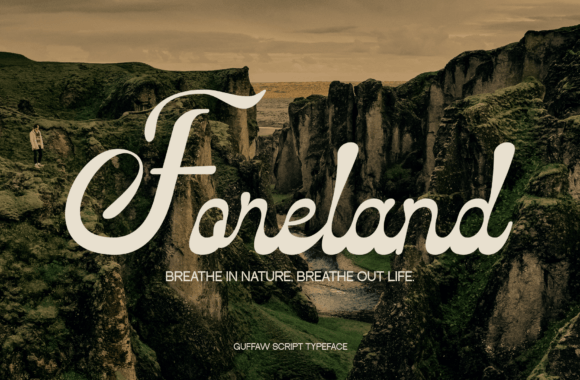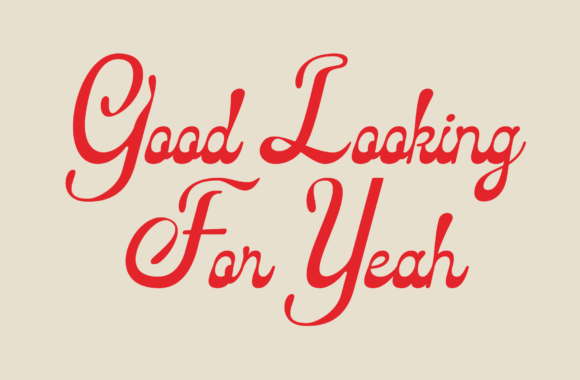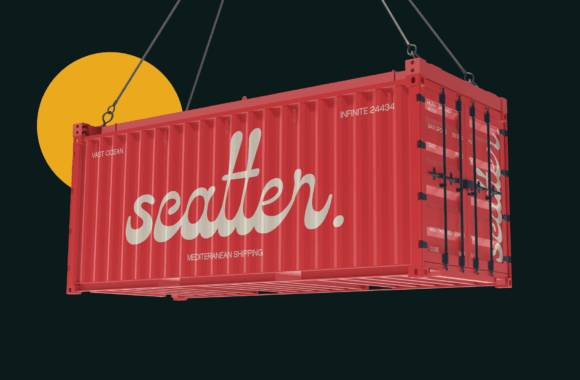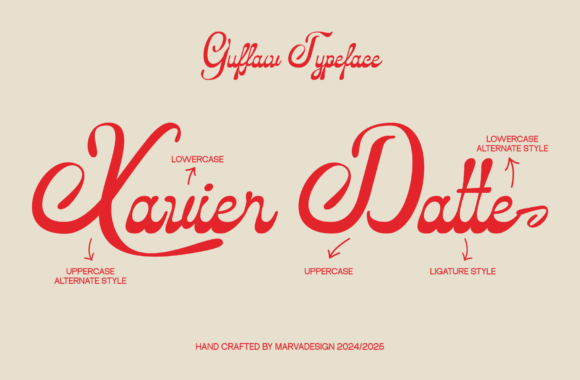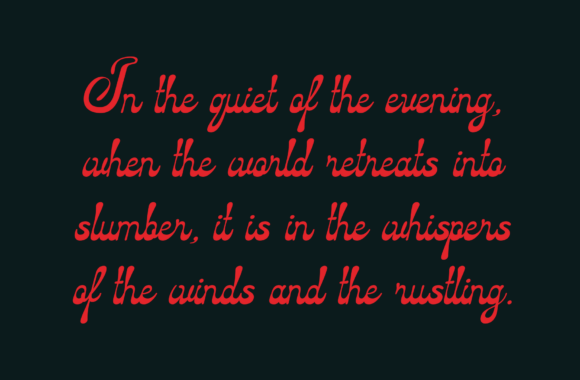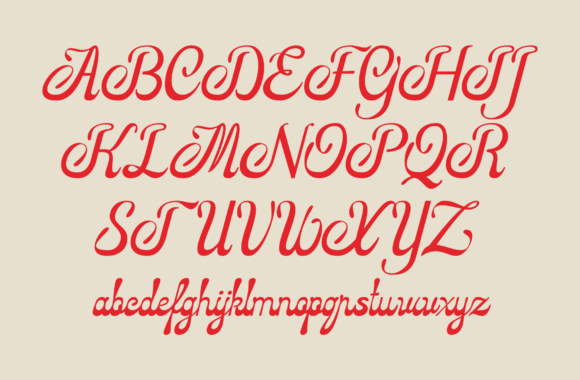
Introduction to Guffaw Font
Have you ever been working on a creative project, pouring your heart and soul into it, only to feel like something’s missing? That’s when you stumble upon a game-changing design resource that elevates your work to the next level. For designers seeking a unique and captivating visual language, I’m excited to introduce you to Guffaw Font – a lively, expressive handwritten script style that infuses retro charm with groovy aesthetics.
Guffaw Font is more than just a typeface; it’s a breath of fresh air for designers looking to inject a playful and nostalgic touch into their work. With its fluid strokes and organic letterforms, this typeface combines classic influences with a modern edge, crafting a distinctive personality that is both timeless and fresh. Whether you’re working on a branding project, packaging design, or social media graphics, Guffaw Font enhances your creative works with its dynamic character.
Key Features of Guffaw Font
- High-quality, professional design resource ideal for creative projects
- Unique, playful font style with a transparent background for seamless integration
- Perfect for digital and print media, including logos, posters, and social media graphics
- Supports a wide range of languages and characters for global compatibility
Honest Review: Guffaw Font
As a designer, I’m always on the lookout for high-quality design resources to elevate my creative projects. The Guffaw Font is one such resource that caught my attention.
- Unique and playful design: The Guffaw Font is perfect for projects that require a lighthearted and humorous tone.
- High-quality glyphs: The font is well-designed and features crisp, clear glyphs that are easy to read.
- Transparent background: This makes it easy to use the font on any background, without worrying about visibility issues.
While the Guffaw Font is an excellent choice for many projects, it may not be suitable for more formal or professional designs. The playful design may not be taken seriously in these contexts.
Overall, I’m impressed with the Guffaw Font. It’s a fun and versatile design resource that can add a touch of personality to any creative project. Whether you’re a seasoned designer or just starting out, this font is definitely worth checking out.
Common Use Cases for Guffaw Font
The Guffaw Font is perfect for a variety of creative projects, including logo design, typography-focused artwork, social media graphics, and promotional materials. You can also use it for presentations, reports, and other written materials. With its high-quality design and transparent background feature, the Guffaw Font is a valuable resource for any designer or creative professional.